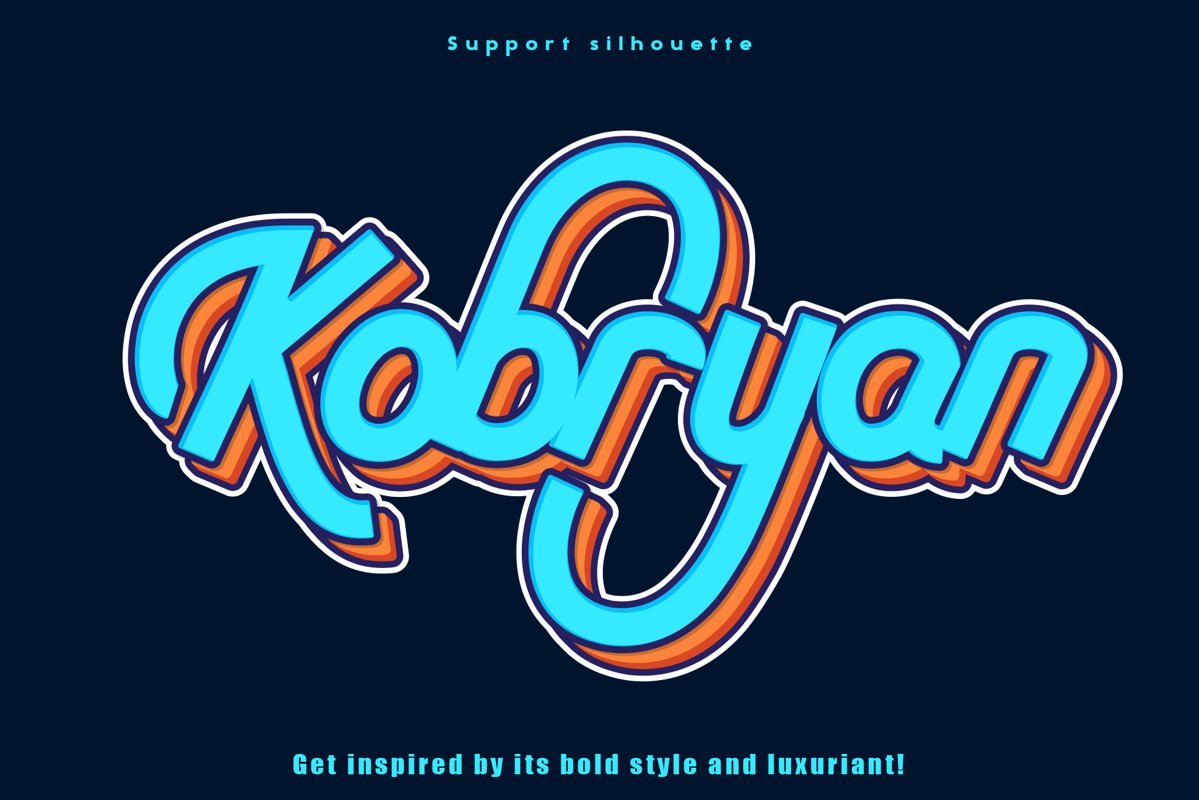
Kobryan
is a bold script typeface created by letterara, and is uniquely crafted to give
your designs a monogram appeal.
Get
inspired by its bold style and luxuriant!
- Ligature and Swash
- Support multilingual; ä ö ü Ä